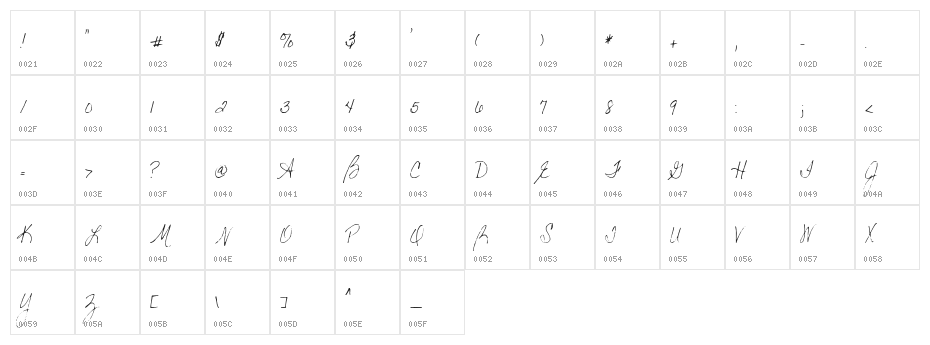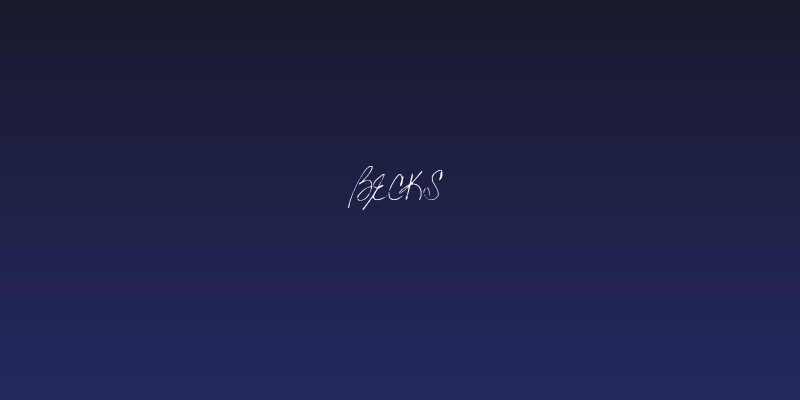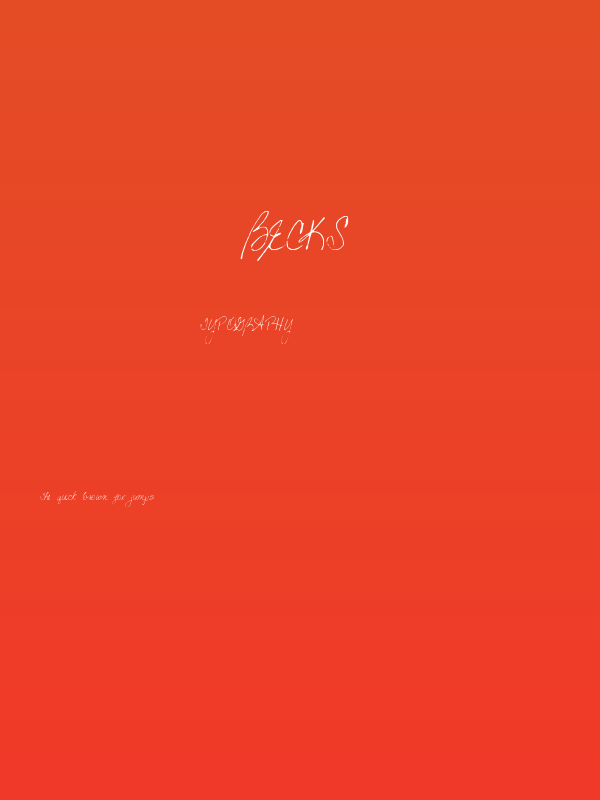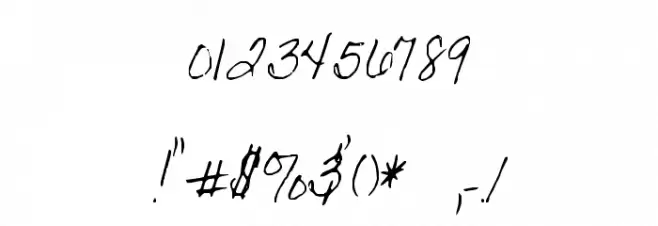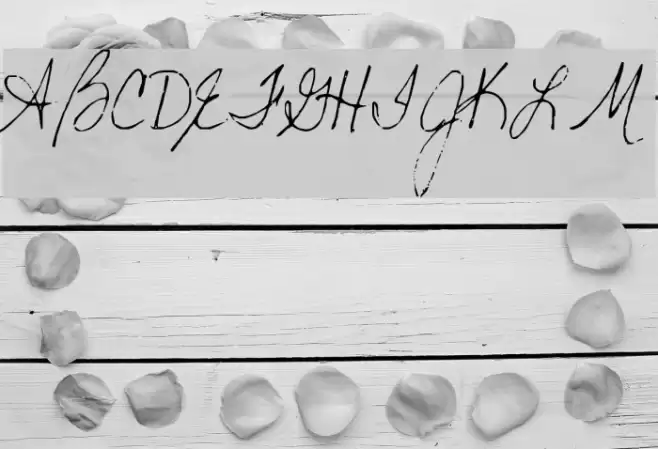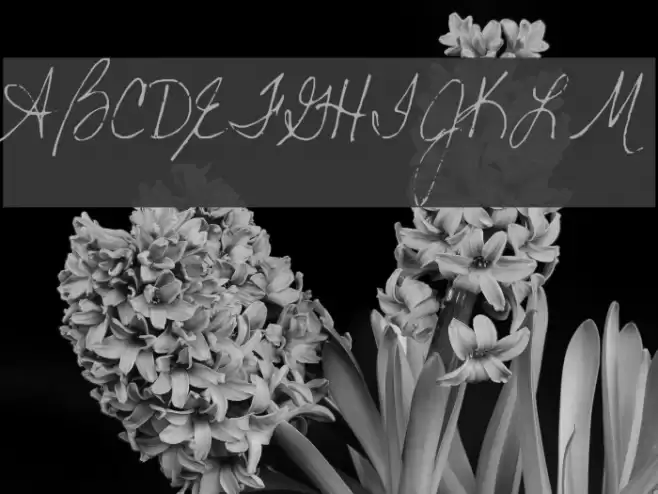
Becks Font
Becks Description
This font exudes a sophisticated and elegant handwritten style, characterized by its fluid and graceful strokes. The letters are connected in a cursive manner, creating a seamless flow that mimics natural handwriting. The uppercase letters are slightly more elaborate, with flourishes that add a touch of formality. The lowercase letters maintain a consistent style, with gentle curves and loops that enhance readability. Numbers and special characters are designed to match the overall aesthetic, ensuring a cohesive look across all text. This font is perfect for projects that require a personal and artistic touch.
| Overall Style | Elegant |
| Use Case | Logos, Invitations, Artistic projects |
| Proposed Projects | Ideal for wedding invitations, personal branding, greeting cards, and artistic projects. |